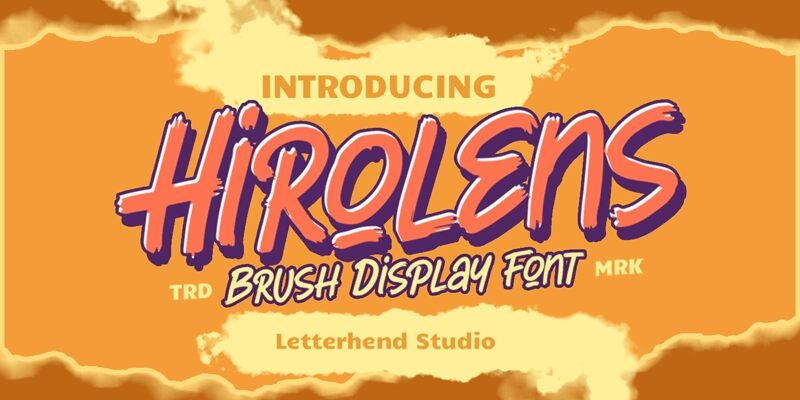
Hirolens, a creation by Letterhend Studio, is a captivating display brush script font that exudes a playful charm. With its versatile and dynamic nature, this font is an ideal choice for a wide range of projects. Its bold and semi-bold weight adds depth and impact to any design it adorns.
The Hirolens font shines in logo designs, where it injects personality and character into brand identities. Its eye-catching style also makes it perfect for headlines that demand attention and make a lasting impression. Signage becomes more vibrant with the Hirolens font, instantly drawing the eye of passersby.
Furthermore, this brush script font complements formal forms such as invitations, labels, magazines, books, greeting or wedding cards effortlessly. Its unique flair adds elegance to packaging designs while enhancing the allure of fashion and makeup-related materials.
For those seeking to create stunning stationery or captivate readers with novel titles or magazine covers, Hirolens offers endless possibilities. Embrace the versatility of Hirolens for any advertising purpose and watch your designs come alive with its playful yet sophisticated appeal.